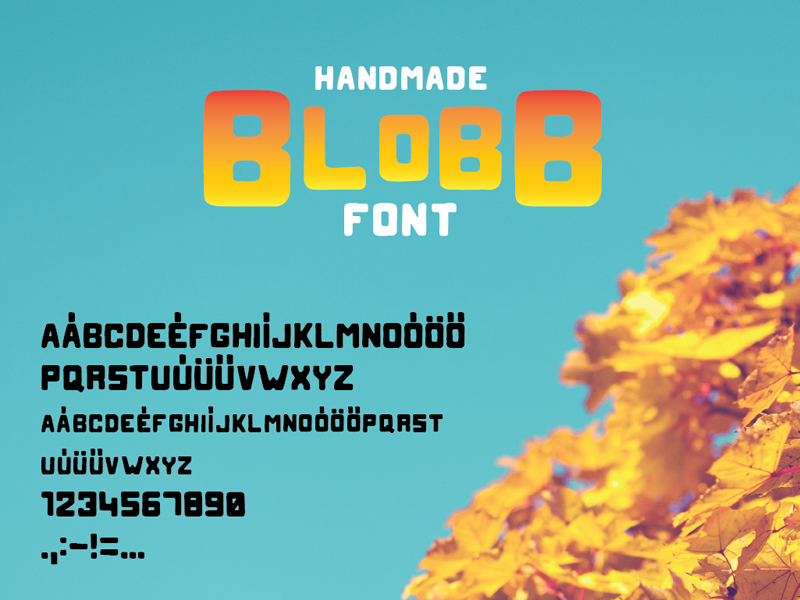
Font name: | Blobb |
Author: | Áron Varga |
Note by Áron Varga | |
A simple font drawn on paper and digitalized using Illustrator. Hope you'll love using it as much as I do. Use it for T-shirt designs, logos, posters, flyers. The possibilities are endless. - Hungarian letters included PURCHASE COMMERCIAL LICENSE: https://sellfy.com/p/c39o/ God loves You! |